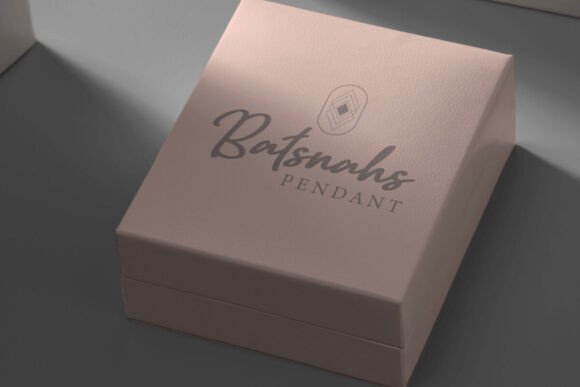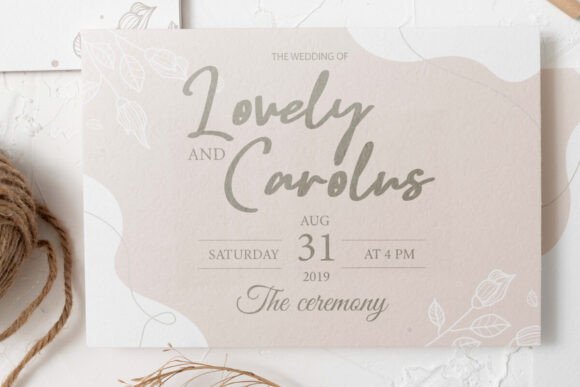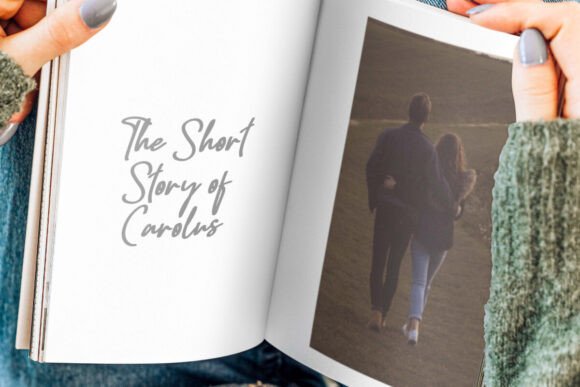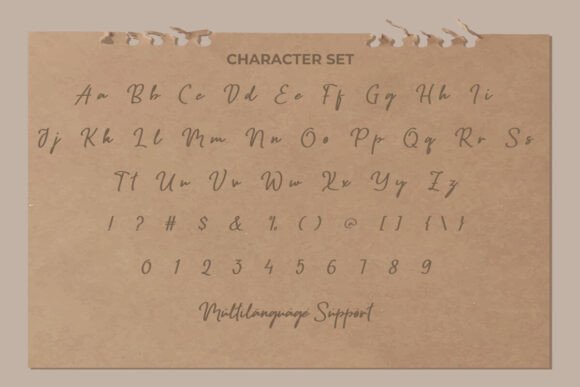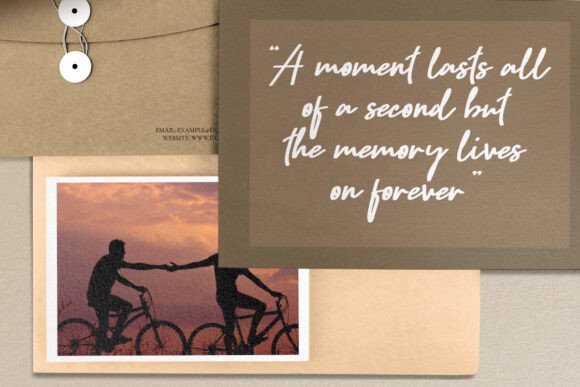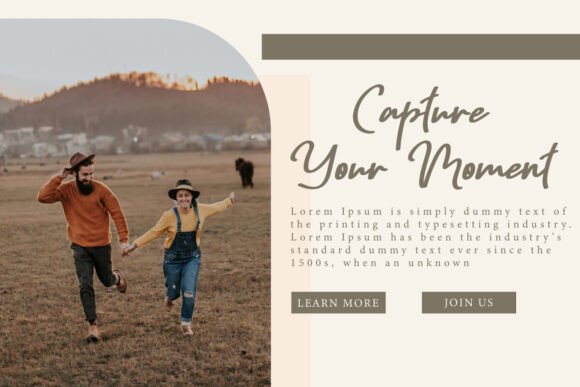
Introduction to Memory Going Font
Memory Going Font is a beautiful simple script handwritten font.
This font has a natural handwriting style like in a diary which can jog your memory when you see it It will be good to perfect any project design, such as brand image, brochure, cover, custom design, flyer, invitation, label, marketing material, menu, poster, screen print, signage, stationery, sticker, thank you card, title, website page, and many more.